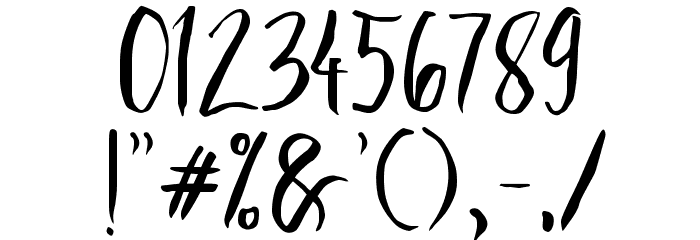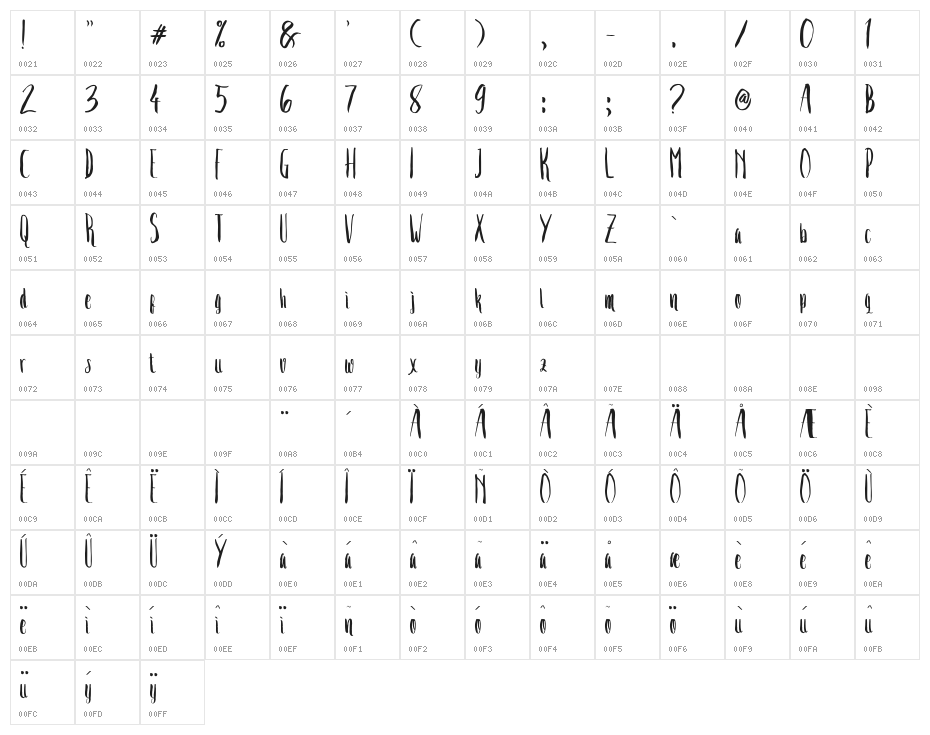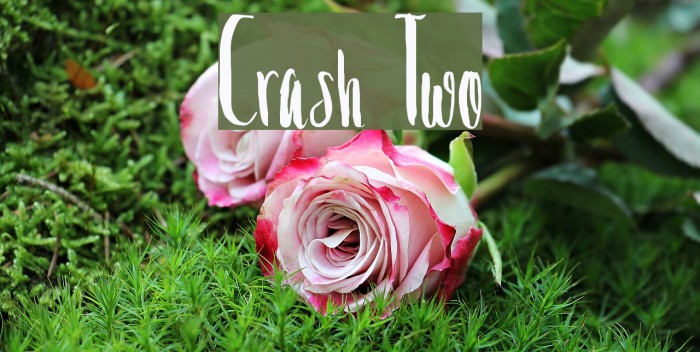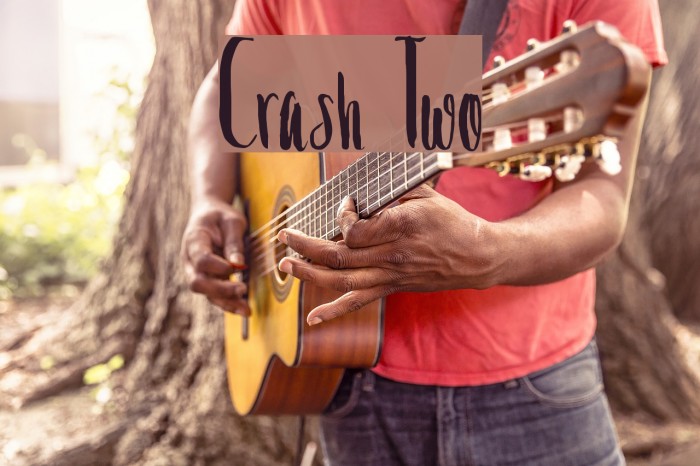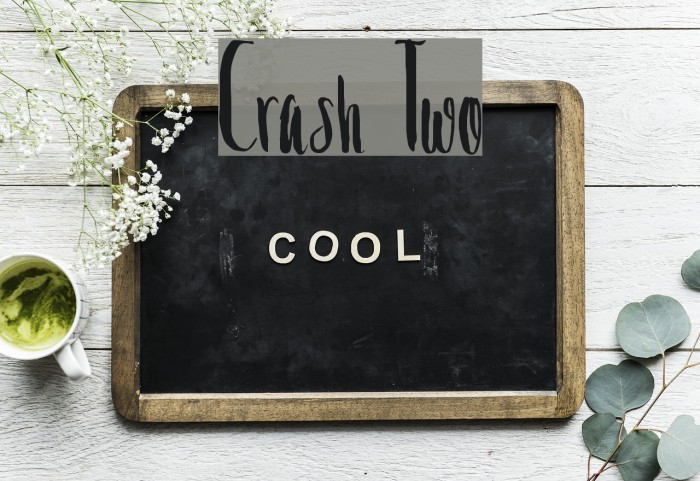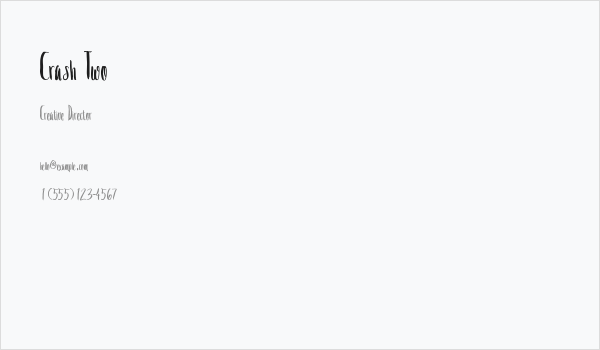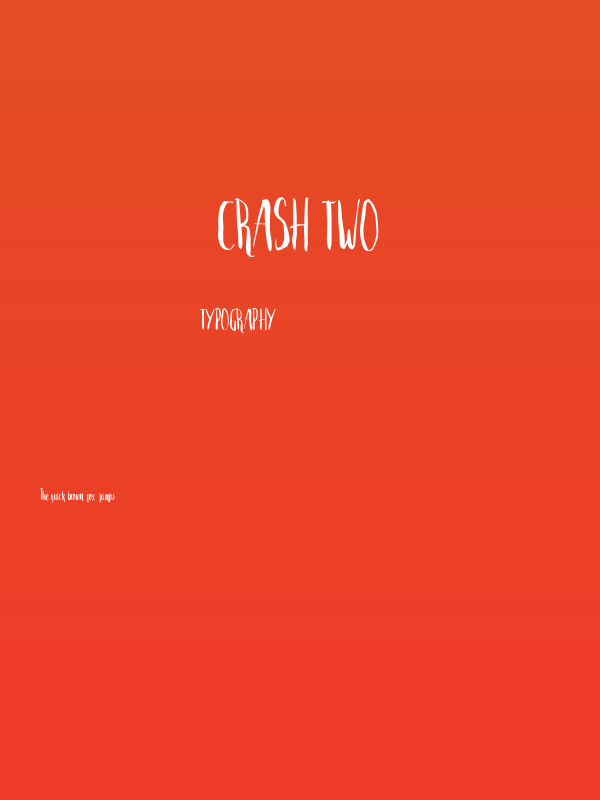
Crash Two Font
Crash Two Description
This font features a dynamic and expressive style with elongated, slightly irregular strokes that give it a hand-drawn appearance. The uppercase letters are tall and narrow, while the lowercase letters maintain a consistent flow with a playful touch. The numbers are distinct and maintain the same energetic style, making them easily recognizable. Special characters are crafted with the same attention to detail, ensuring a cohesive look across all elements. The overall design is both artistic and modern, suitable for creative projects that require a personal touch.
| Proposed Projects | Ideal for artistic projects, branding, posters, and invitations where a personal and creative touch is desired. |